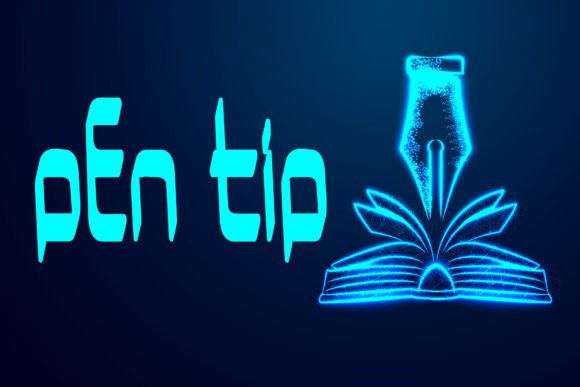
Pen Tip: A Modern Display Font for Creative Freedom
When it comes to making a visual impact, the right font can be the difference between something that looks ordinary and something that stands out. Pen Tip is a modern and casual display font that brings personality and clarity to your design projects. With its clean lines and slightly handwritten feel, Pen Tip offers a fresh alternative to more rigid typefaces while maintaining legibility and professionalism.
Real-World Use Cases for Pen Tip
Designers across various industries are turning to Pen Tip for its adaptability. It works well in both digital and print environments, making it an excellent choice for those who want a cohesive brand identity without compromising on style.
Branding and Identity Design
For small businesses or startups aiming to build a warm and approachable brand image, Pen Tip is a go-to option. Its friendly appearance makes it ideal for logos, business cards, and social media profiles. Consider a boutique café using Pen Tip in their branding — the font’s casual yet refined look complements the cozy ambiance they’re trying to project. The same applies to wellness brands, creative agencies, or any service-oriented business that wants to appear personable and trustworthy.
Web and App Interfaces
On websites or mobile apps, especially those targeting younger audiences, Pen Tip can add a touch of modernity and creativity. It’s commonly used for headings, call-to-action buttons, and app titles where a bit of character is needed without sacrificing readability. Think of a lifestyle blog or a personal portfolio site — Pen Tip helps establish a unique voice while keeping the interface user-friendly.
Marketing Materials and Advertising
From posters to brochures, Pen Tip shines in marketing materials. Its bold presence ensures headlines catch attention, while its subtle curves make it feel less aggressive than sans-serif alternatives. A travel agency might use Pen Tip for a “Wanderlust Awaits” tagline, pairing it with vibrant imagery to evoke emotion and curiosity. Similarly, fashion brands or event promotions often leverage this font to create visually appealing content that resonates with their audience.
Editorial and Print Design
In magazines, newspapers, or zines, Pen Tip adds a stylish edge to section headers, pull quotes, and cover titles. While it isn’t recommended for body text due to its decorative nature, it can enhance the overall layout by creating contrast and guiding the reader’s eye. For instance, a food magazine could use Pen Tip for recipe names or feature titles to give them a more inviting and contemporary look.
Why Choose Pen Tip Over Other Fonts?
Pen Tip excels in scenarios where you need a balance between formality and friendliness. Unlike traditional serif fonts that may feel outdated or overly formal, Pen Tip keeps things current. Compared to many script fonts, it maintains enough structure to avoid being too hard to read, especially at smaller sizes or in low-resolution settings.
One of the biggest strengths of Pen Tip is its ability to work in both monochrome and color-rich designs. Whether you're printing a black-and-white flyer or designing a colorful social media graphic, this font adapts well. Its neutral tone also makes it easy to pair with other complementary fonts, allowing for layered typographic treatments that don’t clash.
Common Considerations Before Using Pen Tip
Before integrating Pen Tip into your project, there are a few practical factors to keep in mind:
- Legibility: While Pen Tip is highly readable in most contexts, it’s best suited for larger text rather than fine print. Avoid using it for long paragraphs or dense data presentations.
- Contrast: Because of its casual nature, ensure sufficient contrast against background colors or images. Lighter shades or gradients may require adjustments to maintain visibility.
- Brand consistency: Evaluate whether the font matches your brand’s tone and values. If your brand leans toward minimalism or professionalism, Pen Tip can still fit — but it should be used strategically and sparingly.
- Platform compatibility: Always test how Pen Tip renders across different devices and browsers to confirm it displays consistently. This is particularly important for web-based projects.
Final Thoughts on Practical Application
Pen Tip is more than just a pretty font — it's a tool that can shape the mood and message of your design. By understanding when and how to use it effectively, you can unlock new creative possibilities and better connect with your audience. Whether you're crafting a logo, updating a website, or designing a promotional piece, Pen Tip has the potential to bring your vision to life with both flair and function.